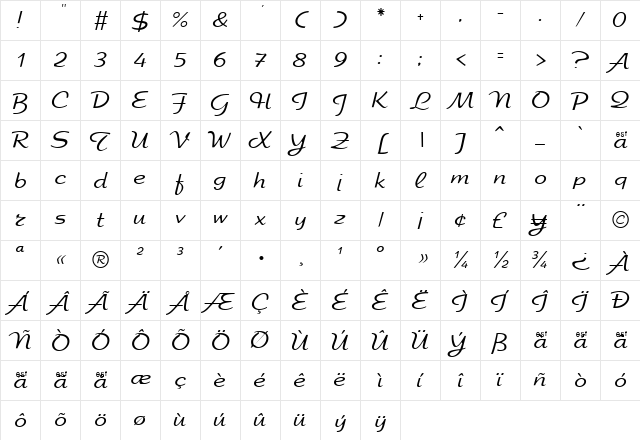
Elfring EliteLight Regular
Design Context for Elfring EliteLight Typeface
Elfring EliteLight takes a measured approach to typography — its balanced proportions and neutral character make it a reliable workhorse for both digital and print work. Its slender proportions lend an understated elegance to any composition.